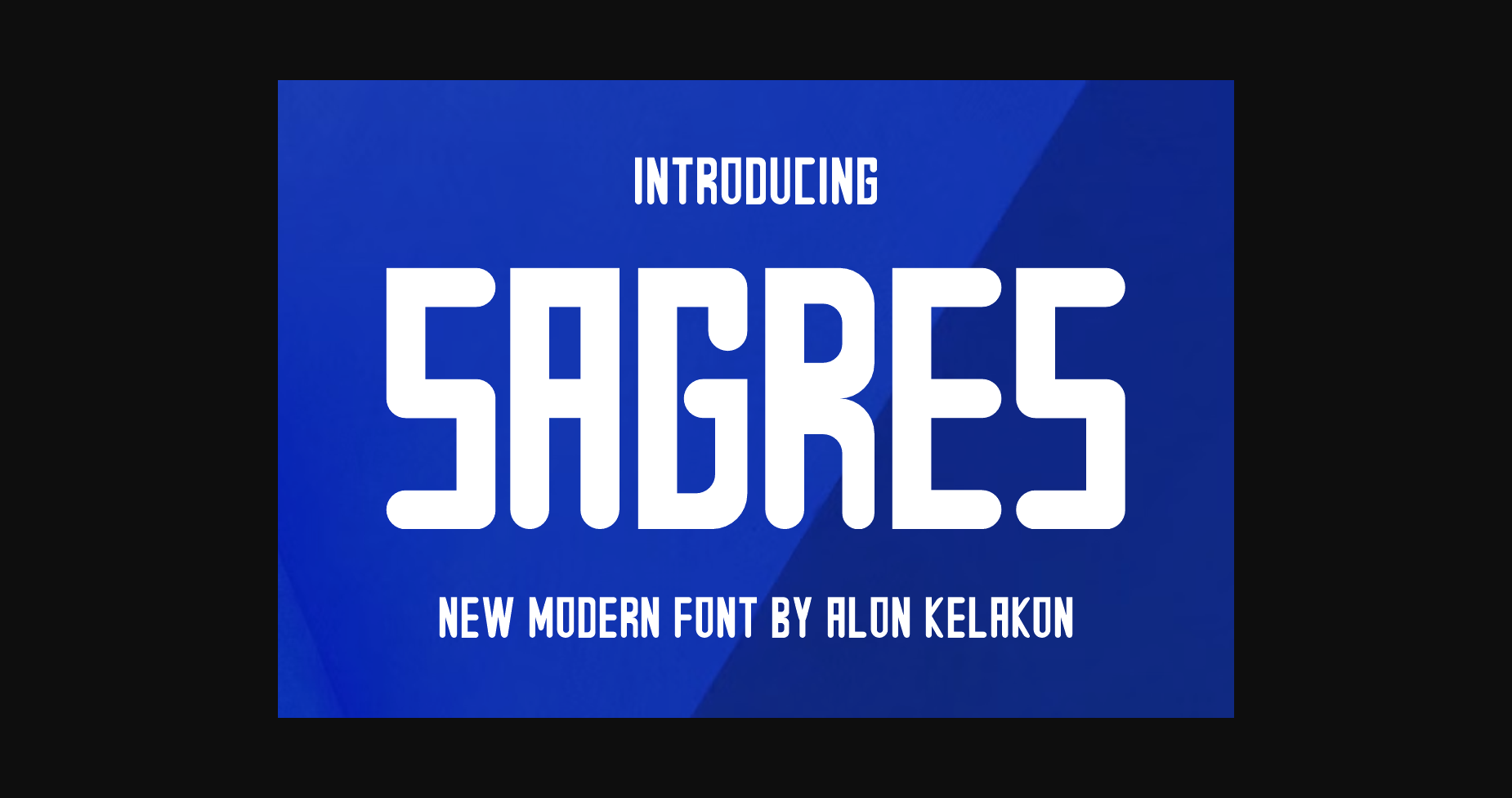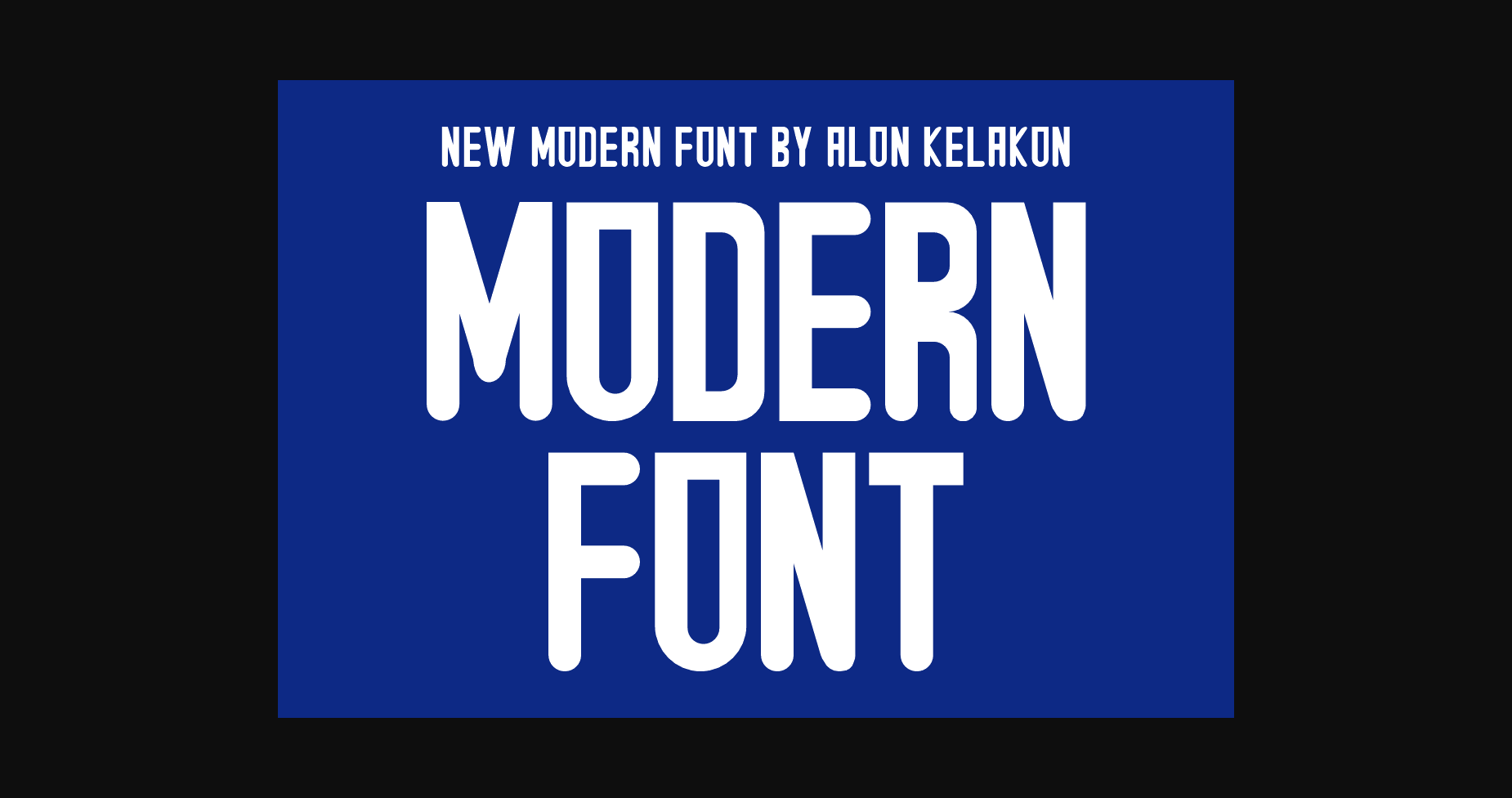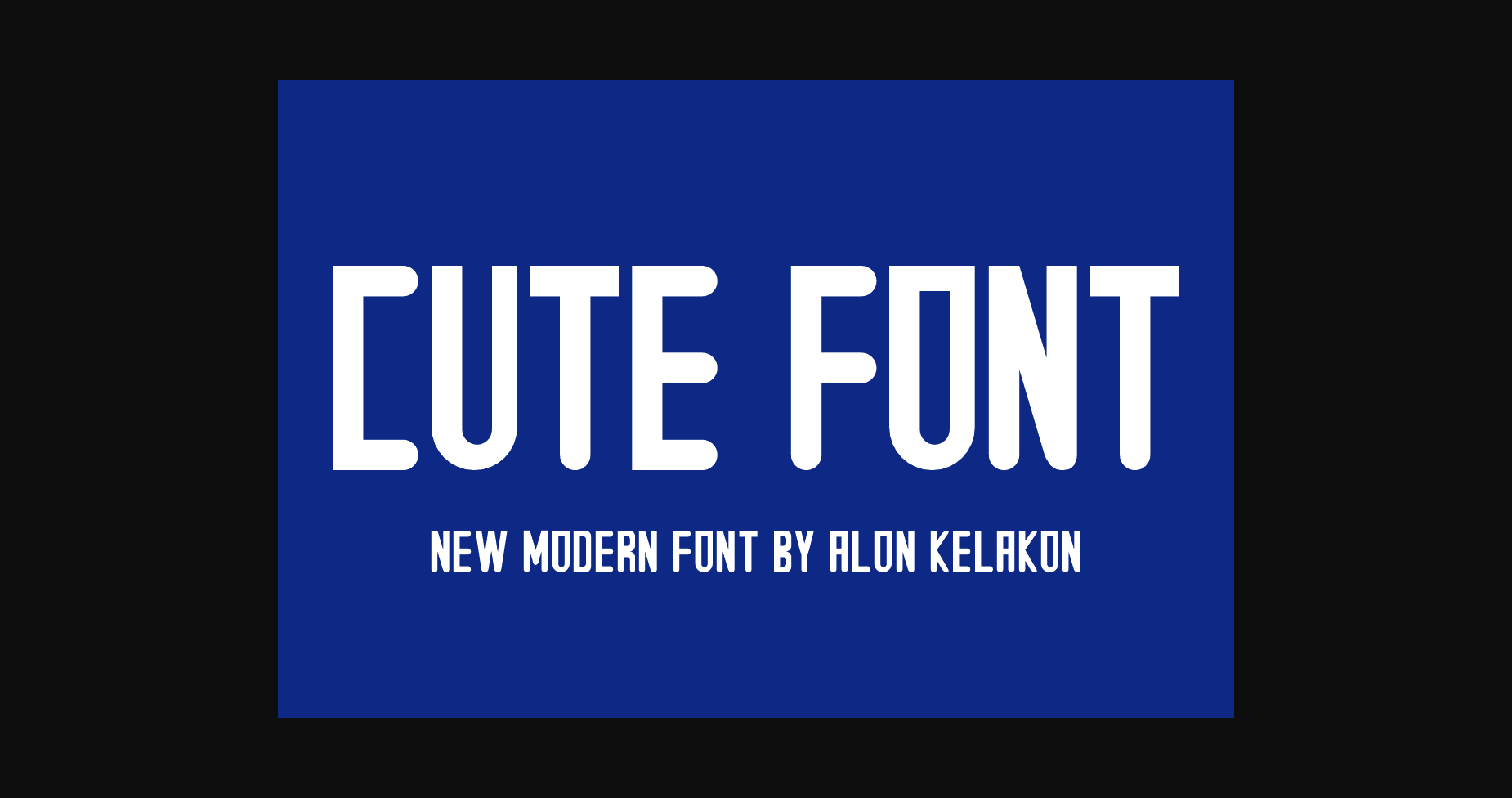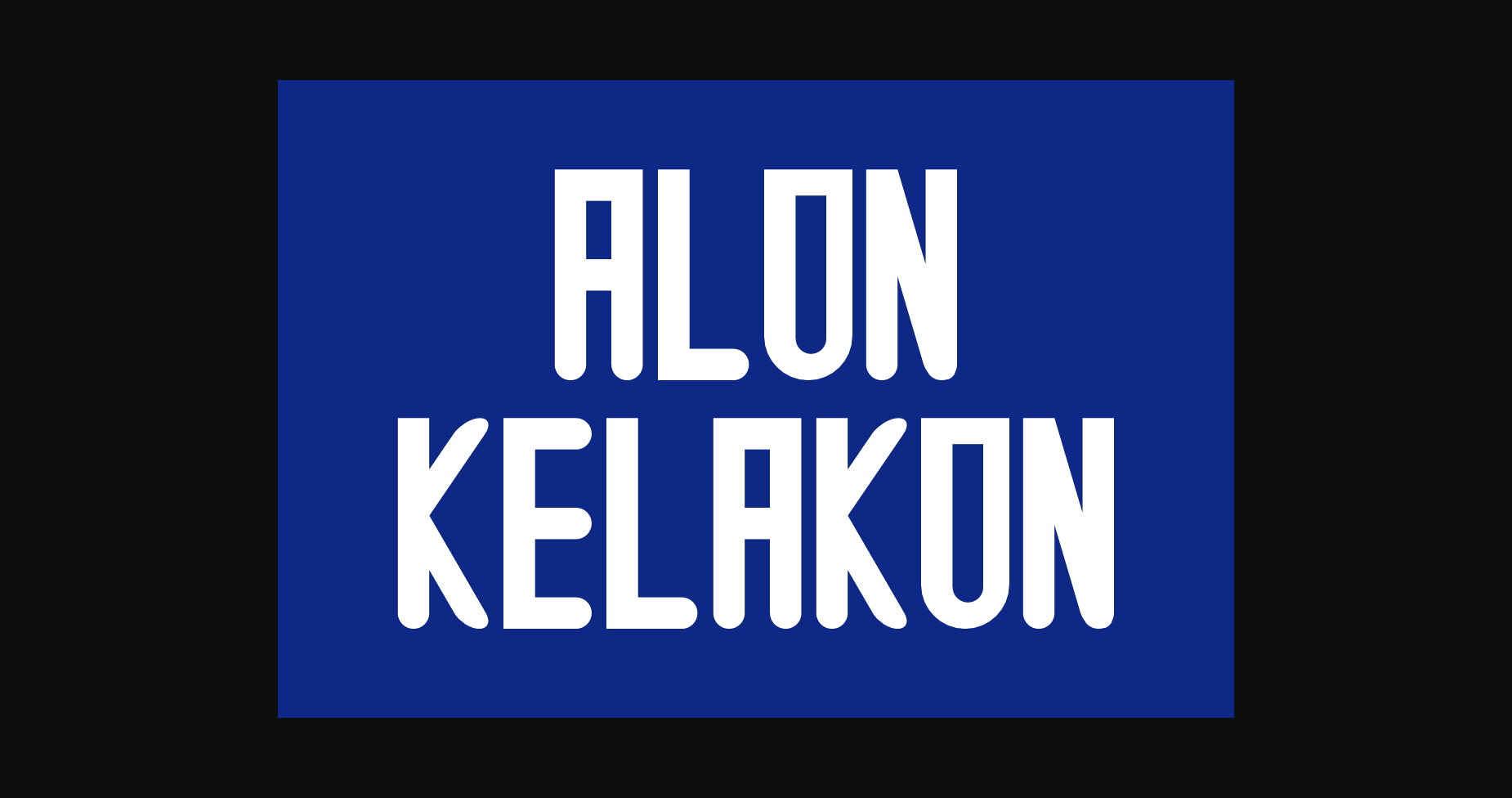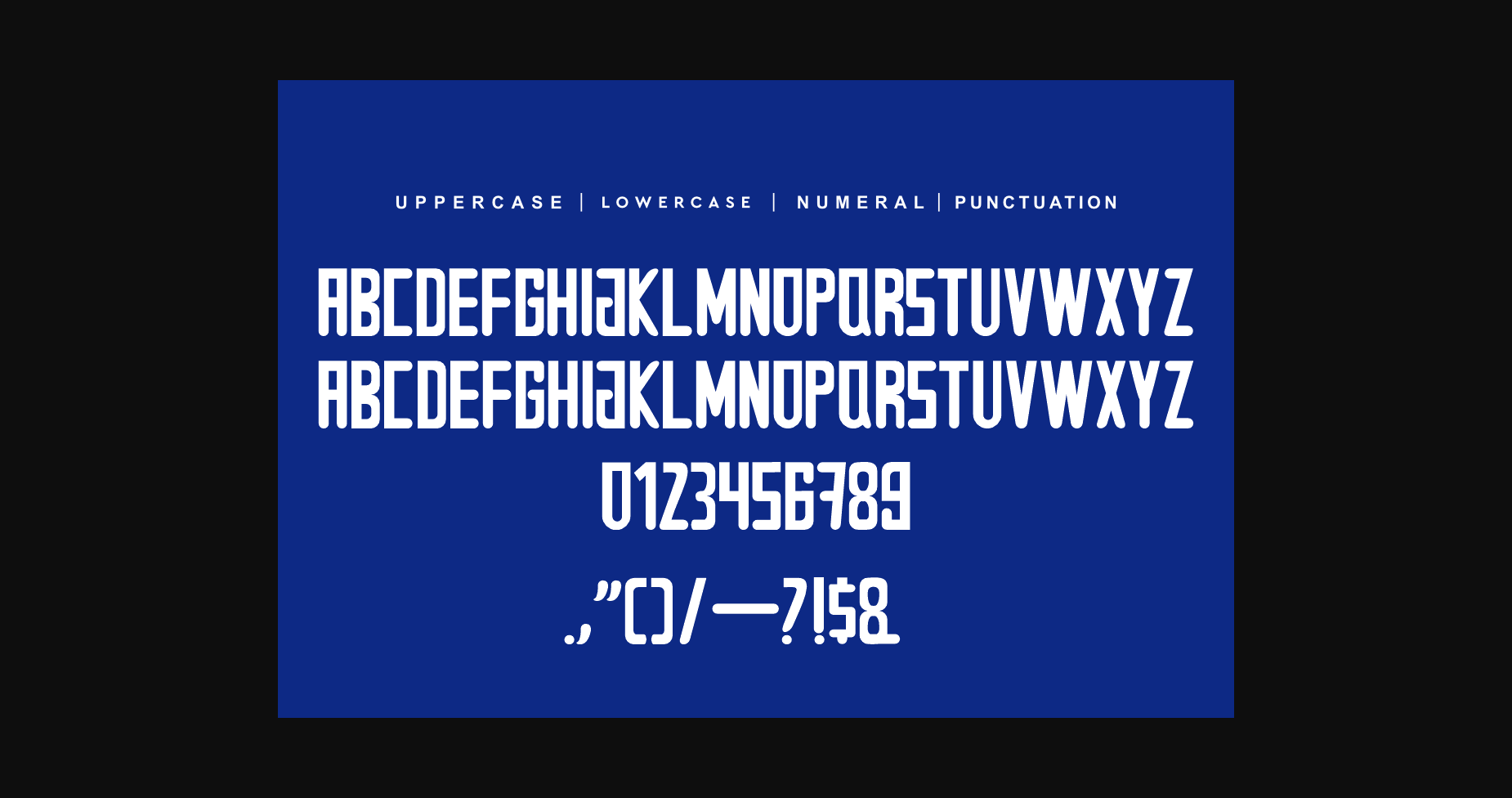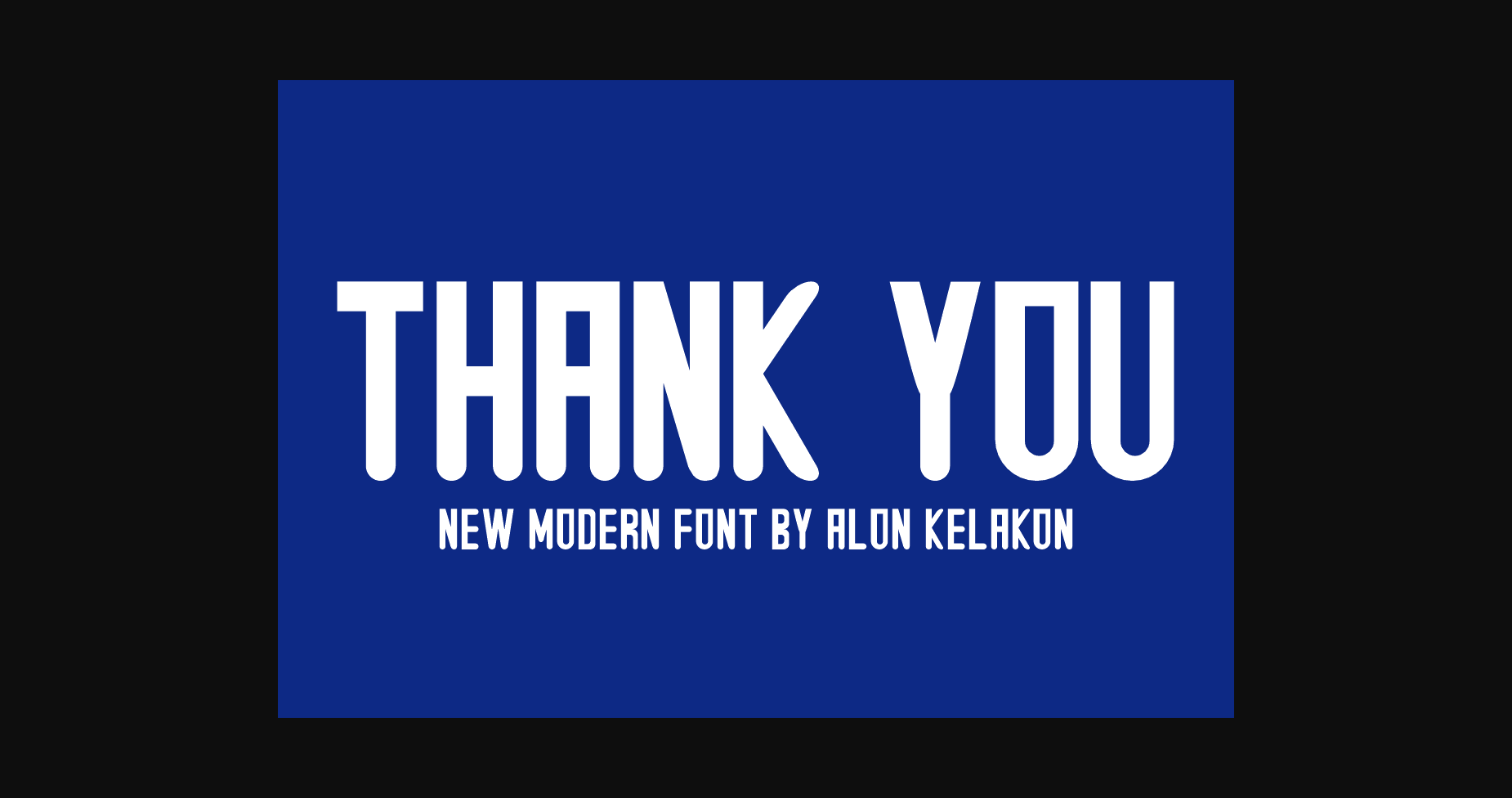
HomeSans Serif FontsSagres Font Sans Serif Fonts Sagres Font FacebookXPinterestWhatsApp 1 of 8 ... Sagres Font Poster 2... Sagres Font Poster 3... Sagres Font Poster 4... Sagres Font Poster 5... Sagres Font Poster 6... Sagres Font Poster 7... Sagres Font Poster 8... About Sagres Font Sagres is an elegant and bold serif font. Fall in love with its incredibly versatile style and use it to create gorgeous wedding invitations, beautiful stationary art, eye-catching social media posts, and much more! DOWNLOAD NOW People also explored Zakesya Font Monogram Wedding Font Winter Sweater Font Bossa Villa Font Black Books Victorian Font Filmotype Hemlock Morning Baby Font Forsaken Font Astronaut 420 0 TagsSagresSagres Font Previous articleBreak Resbonger FontNext articleMaveryn Font LEAVE A REPLY Cancel reply Comment: Please enter your comment! Name:* Please enter your name here Email:* You have entered an incorrect email address! Please enter your email address here Website: Save my name, email, and website in this browser for the next time I comment. Personal Use Free Happy Camping Personal Use Free Read more about this font Beattingvile Personal Use Free Read more about this font Knox Personal Use Free Read more about this font Stronger Personal Use Free Read more about this font BLOG How to Cut Any Font on Cricut: Convert a Font to SVG (Free) Turn any font into a clean SVG so it cuts crisp on Cricut - a quick 3-step workflow using a free font-to-SVG tool. 5 Fonts That Will Dominate Design Trends in 2026 Top 7 Google Fonts Alternatives for Faster and Privacy-Friendly Web Design (2025) The 10 Best Handwriting Fonts to Add Personality to Your Designs